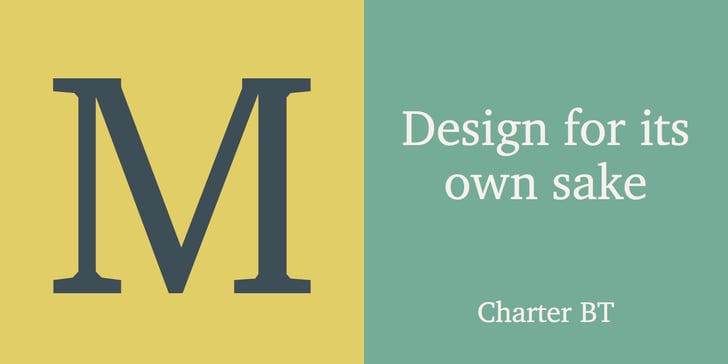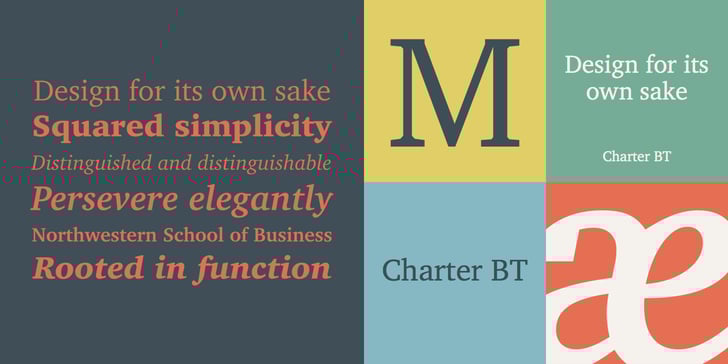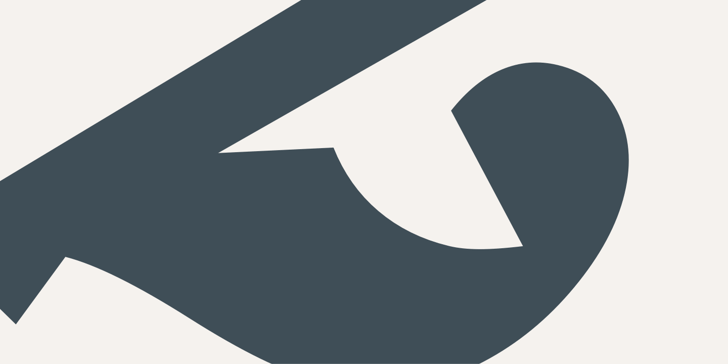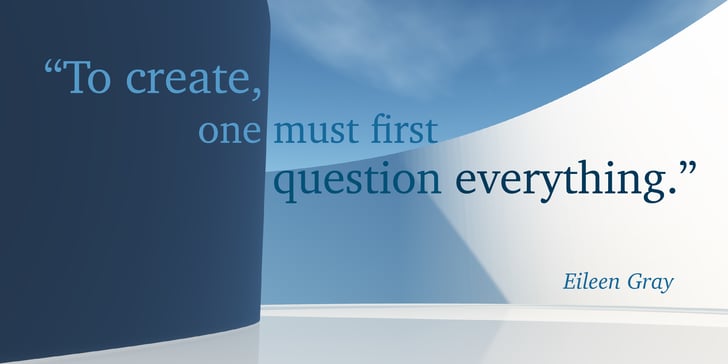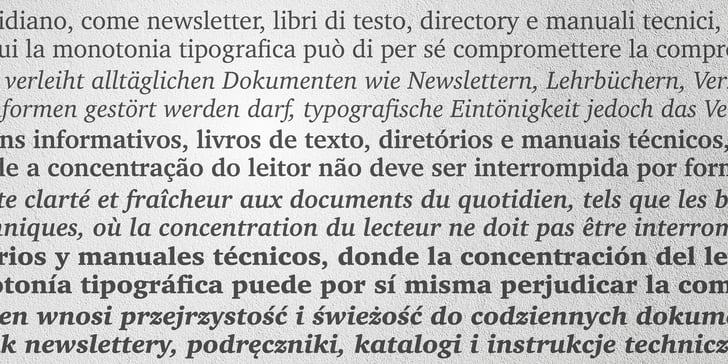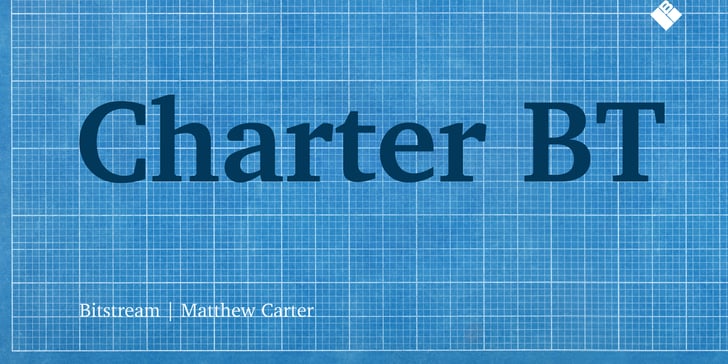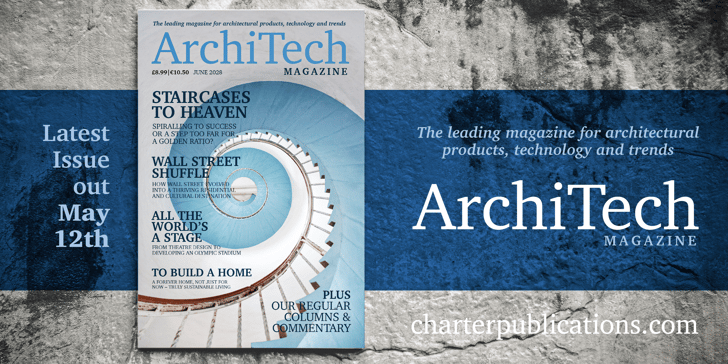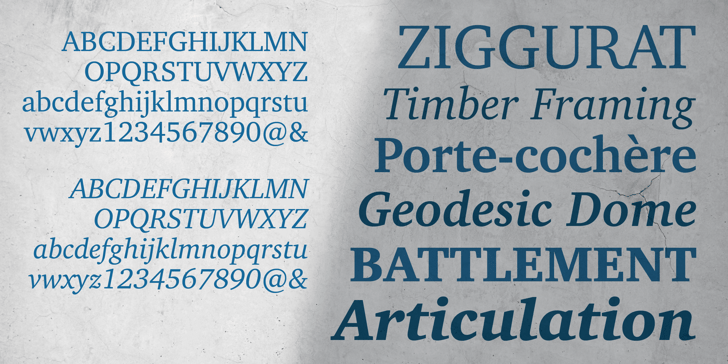
By Bitstream
The Charter BT Font Family was designed by Matthew Carter and published by Bitstream. Charter BT contains 6 styles and 1 family package options. Originally released in 1987, Charter incorporates three important features: compact set width to give economical copyfit; generous x-height to give readability at small point sizes; and sturdy open letterforms to give reliable reproduction at both typesetter and laser printer resolutions. The design brings a clarity and freshness to everyday documents, such as newsletters, textbooks, directories and technical manuals, where the reader’s concentration must not be interrupted by unfamiliar letterforms but where typographic dullness can itself impair comprehension. The Italic has cursive letterforms - so is instantly distinguishable, while being readable enough in its own right for continuous text. The Charter BT Pro Pack features 6 fonts: roman, italic, bold, bold italic, black, and black italic. The fonts include characters originally developed for expert sets, such as ligatures, ornaments, old style figures, small caps, and superiors. The Pro Pack fonts support Western, Central European, and Eastern European languages. OpenType fonts are a cross-platform font format. The same OpenType font can be installed on Mac OS X, Windows, Linux, and Unix systems. Mac OS X and Windows 2000, XP, and Vista have built-in support for OpenType. OpenType fonts also work on Linux, Unix, and earlier versions of Windows, where they are recognized as TrueType fonts. OpenType includes many more features than the standard TrueType and PostScript formats, including the ability to install the same font on different platforms, crucial for document portability. OpenType fonts boost productivity because graphic designers and business professionals do not have to wrestle with many different fonts. With OpenType, customers have larger character sets to work with and fewer font files to deal with.
Matthew Carter
Bitstream